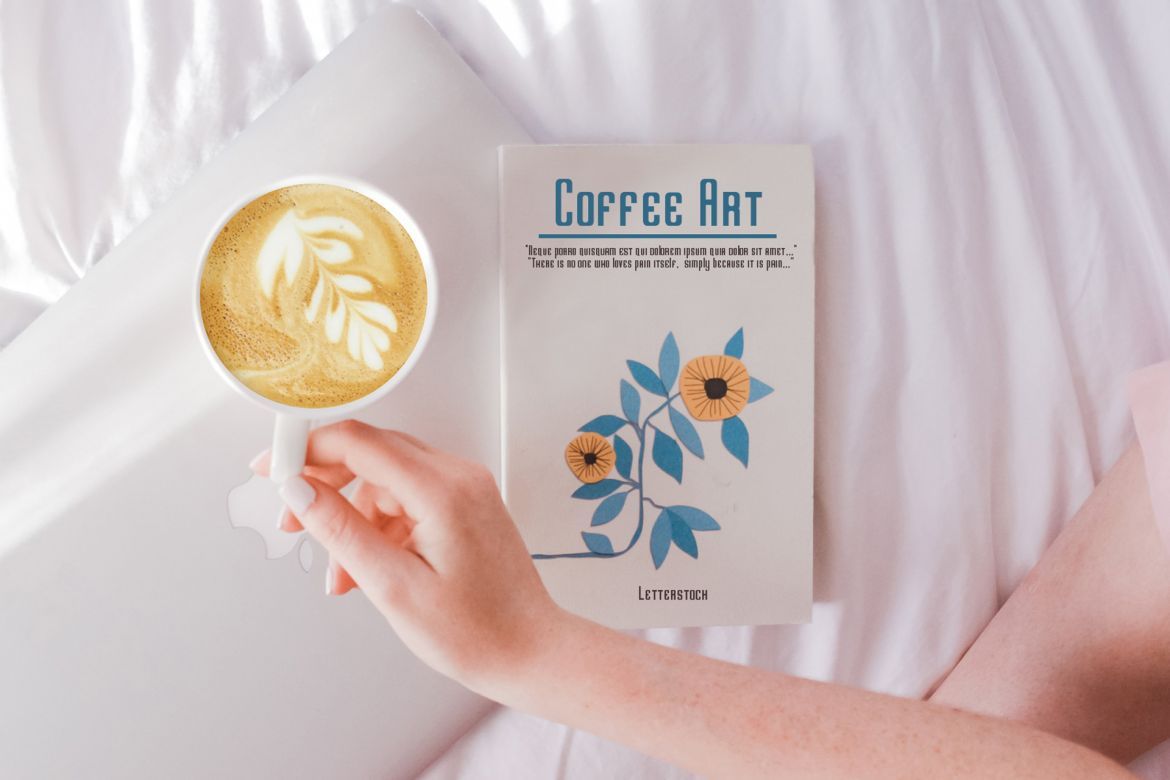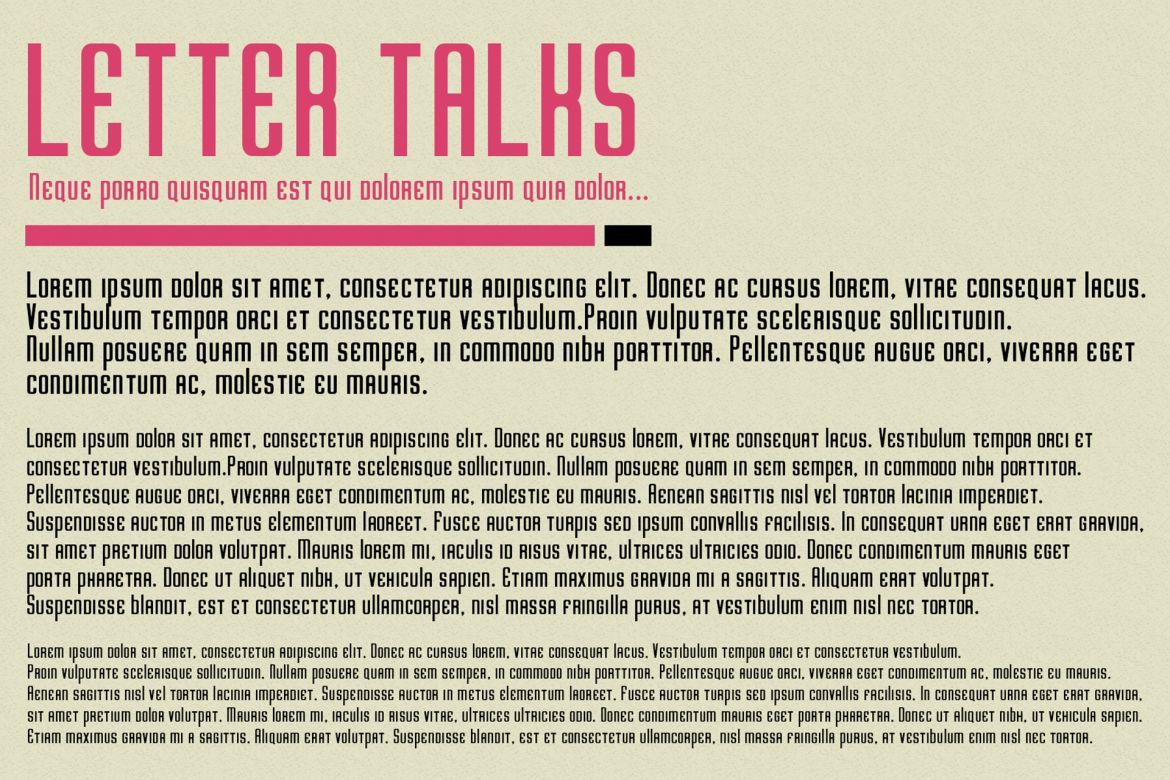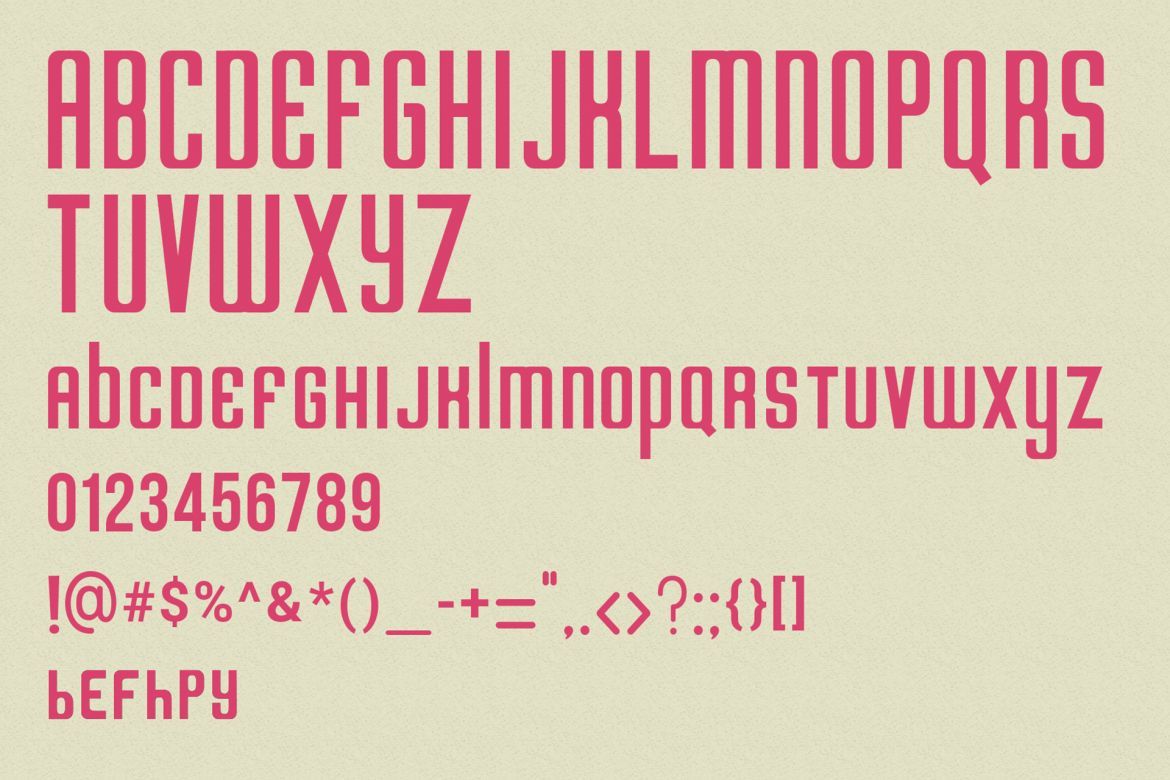
Neowave Sans Font
-- Elegant / Strong / Decorative --
Neowave font is a sans font family Inspired by pop magazine cover design, we try to make it more elegant and fun so it's can useful for any purpose. it's perfect for you to show your design or product in professional way.
Neowave font is works great in any branding, logos, magazines, films, poster, flyer, sign board, tees design,etc
• original hand drawn font
• perfect for any design purpose